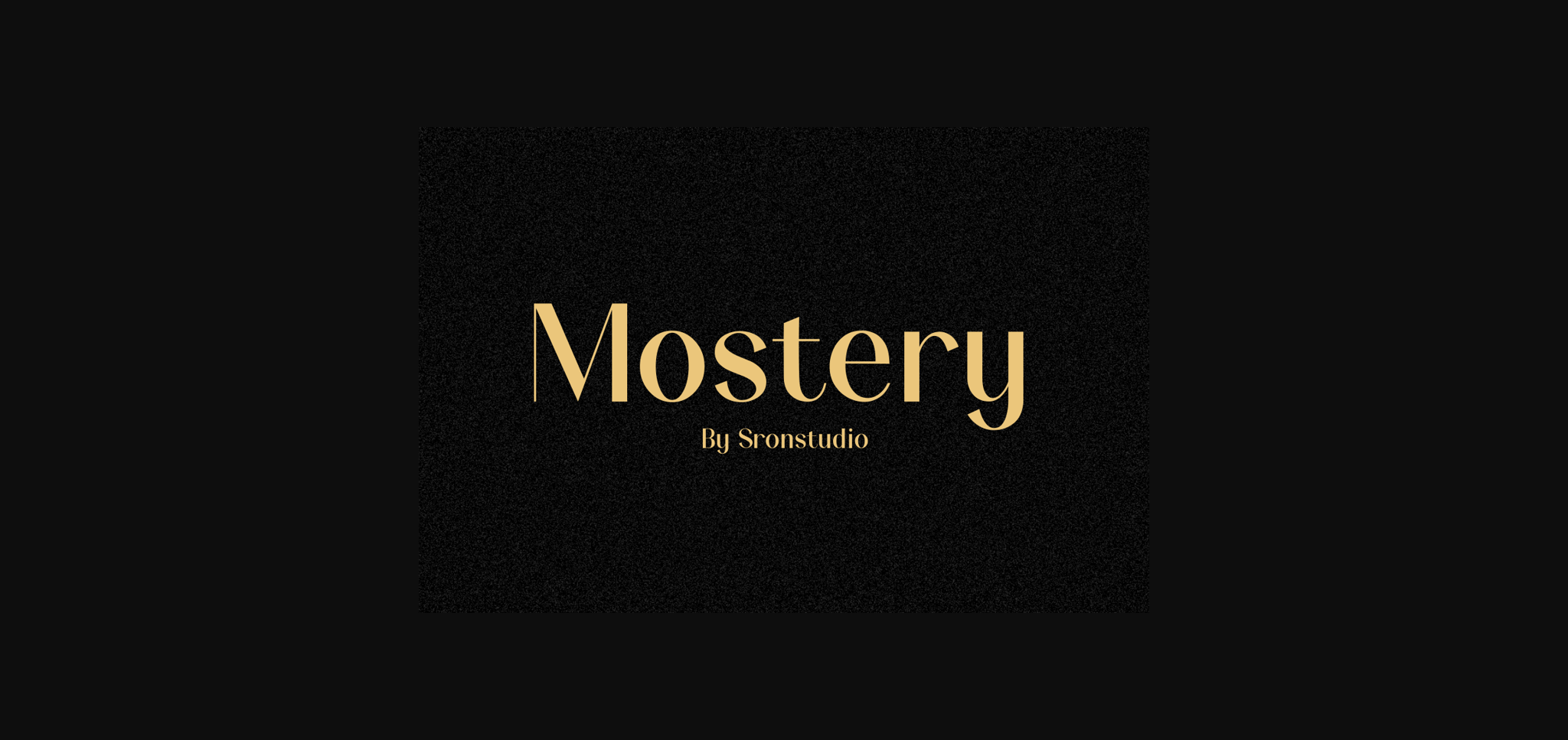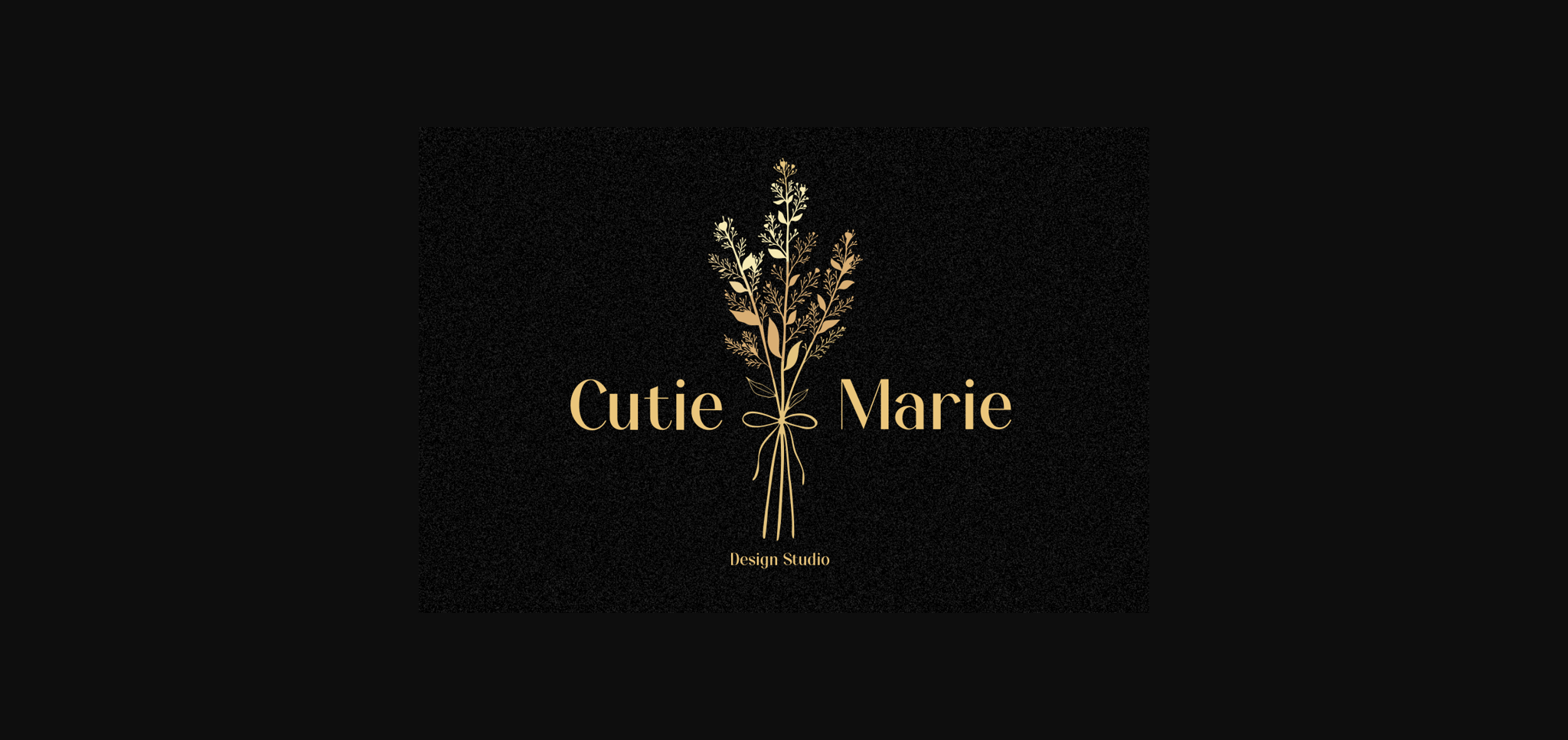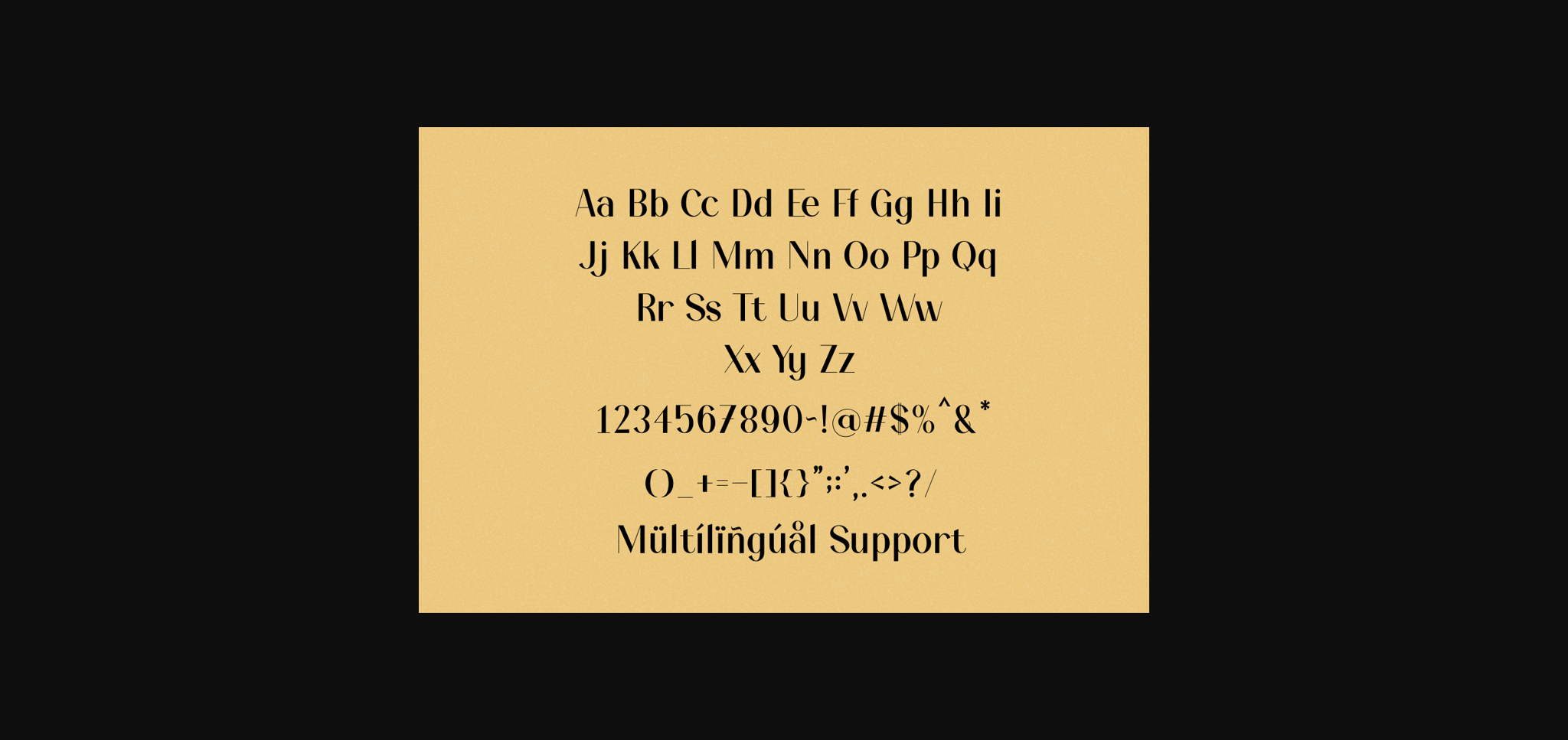
About Mostery Font
Mostery is a modern Sans Serif Font, perfect for branding, invitations, stationery art, wedding designs, social media posts, advertisements, product packaging, product designs, label, photography, watermark, special events, and more.